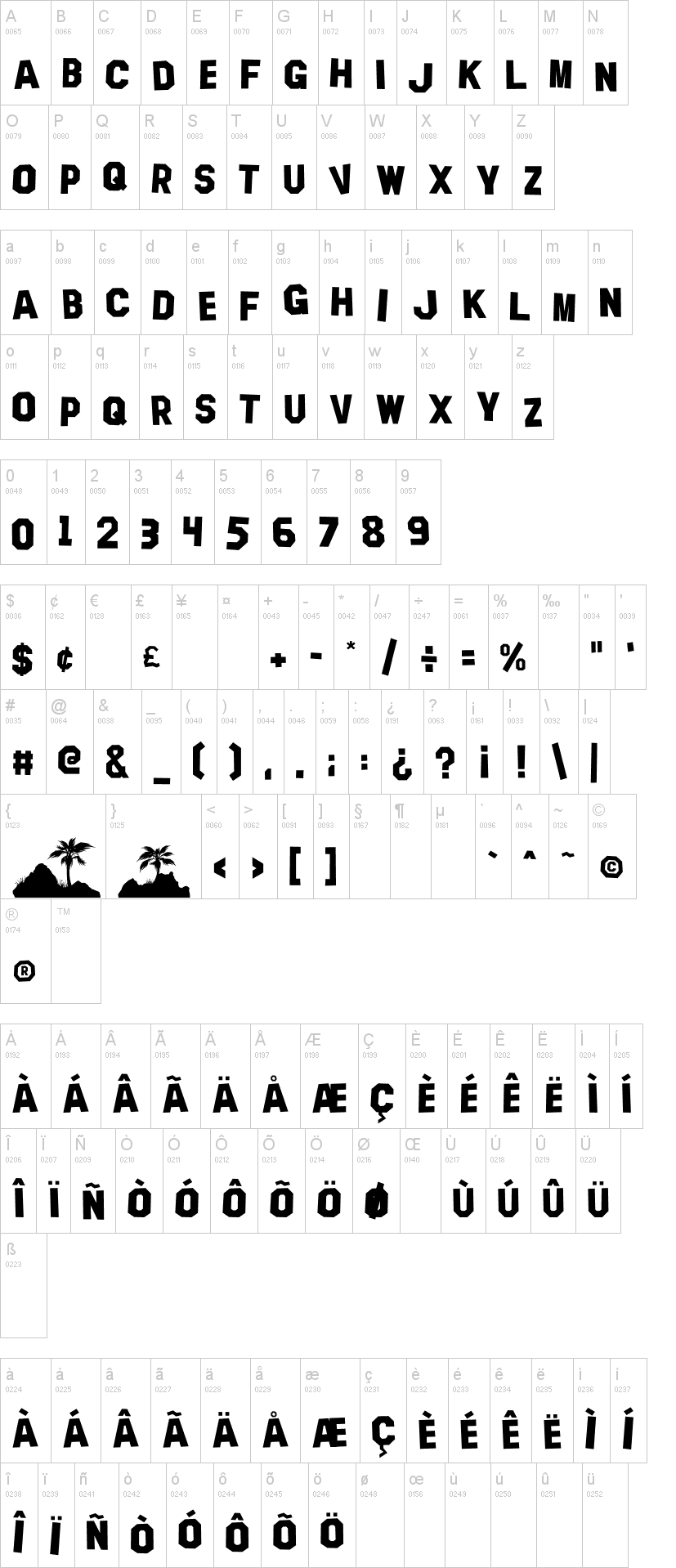
Hollywood Capital Hills (Final).ttfHollywood Capital Blank.ttfNote of the authorI wanted a font that accurately portrayed the hollywood sign and so I came up with this. I made a version with hills so you can create titles that look like the hollywood sign without a graphics program.